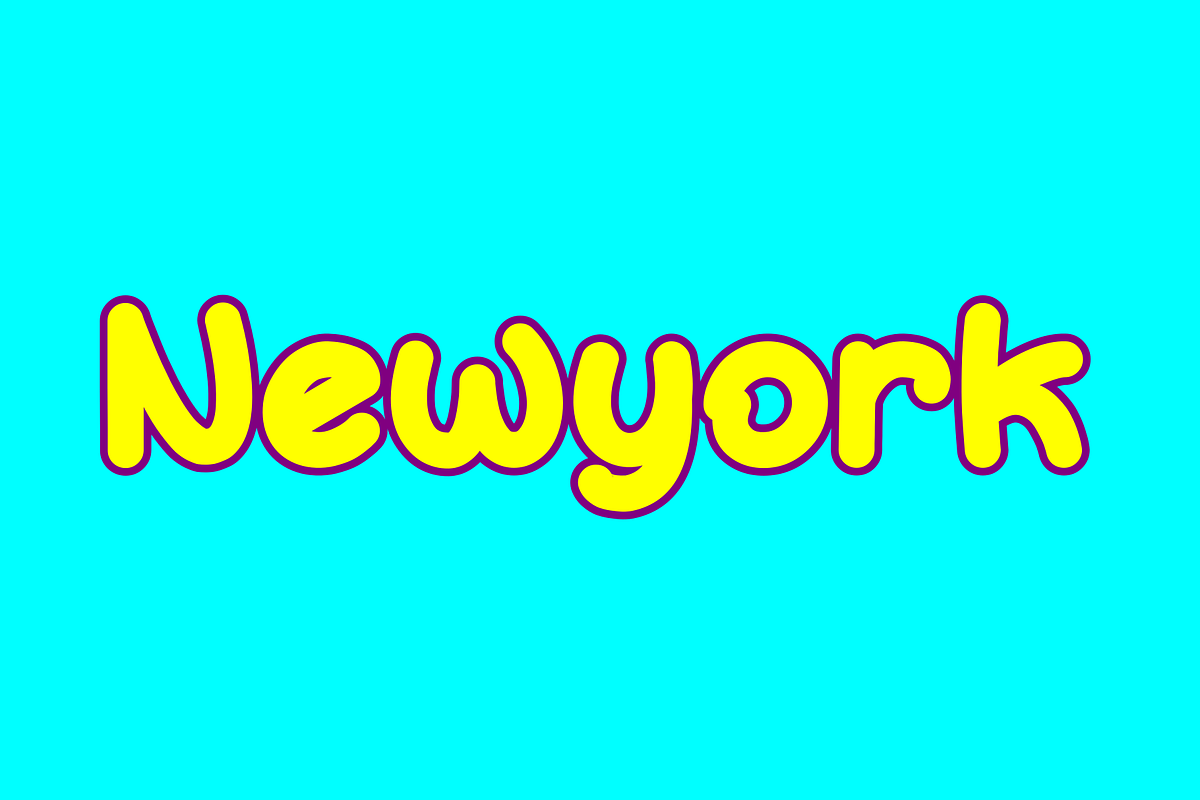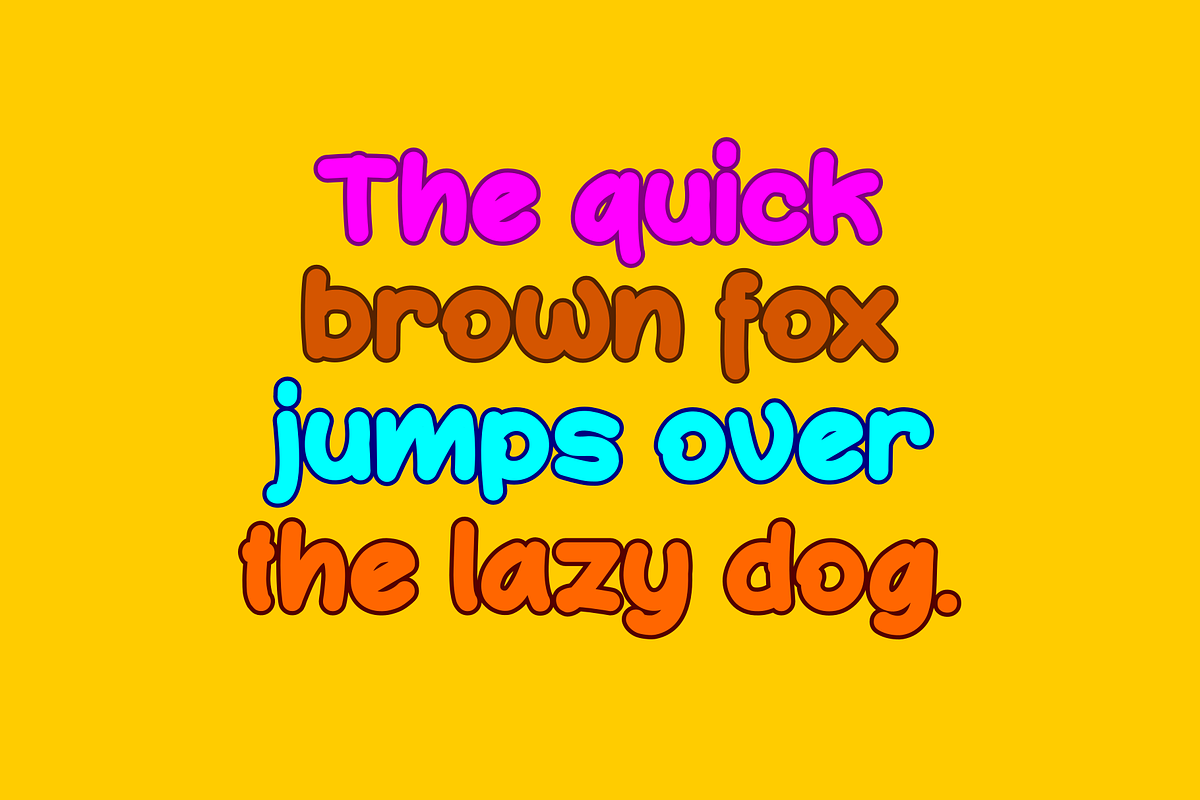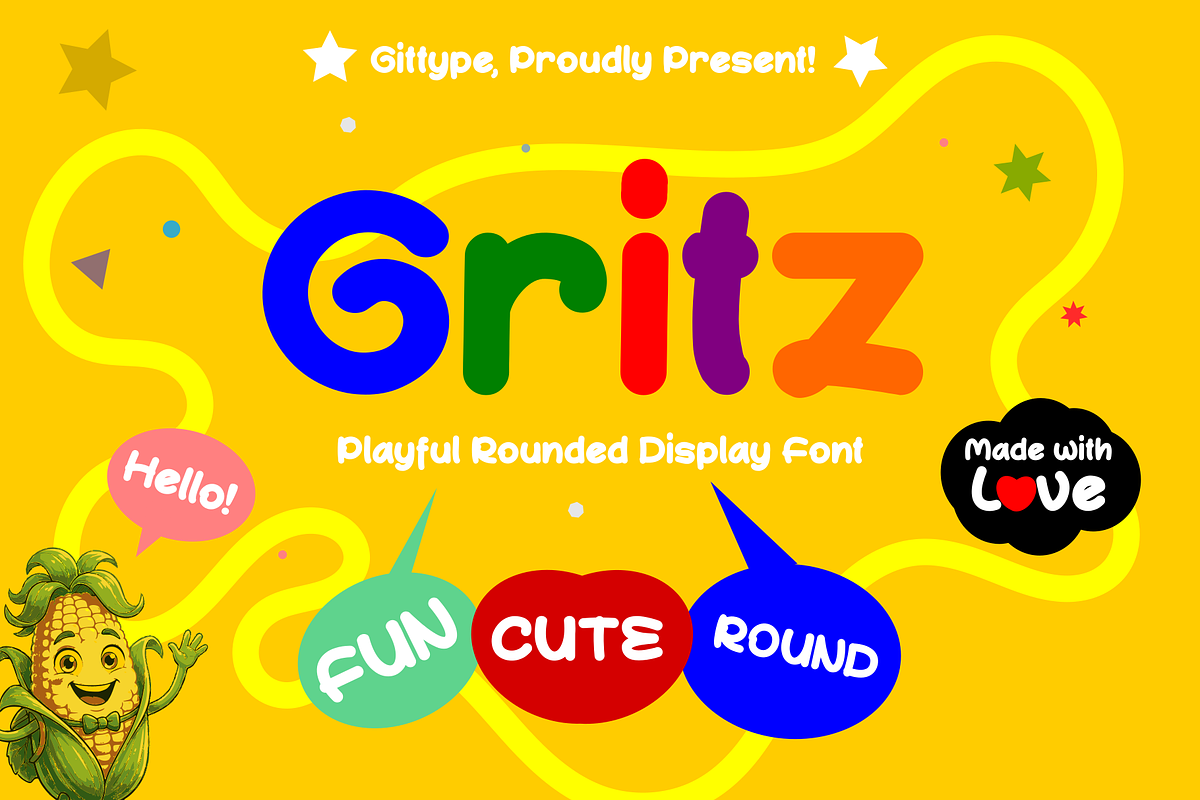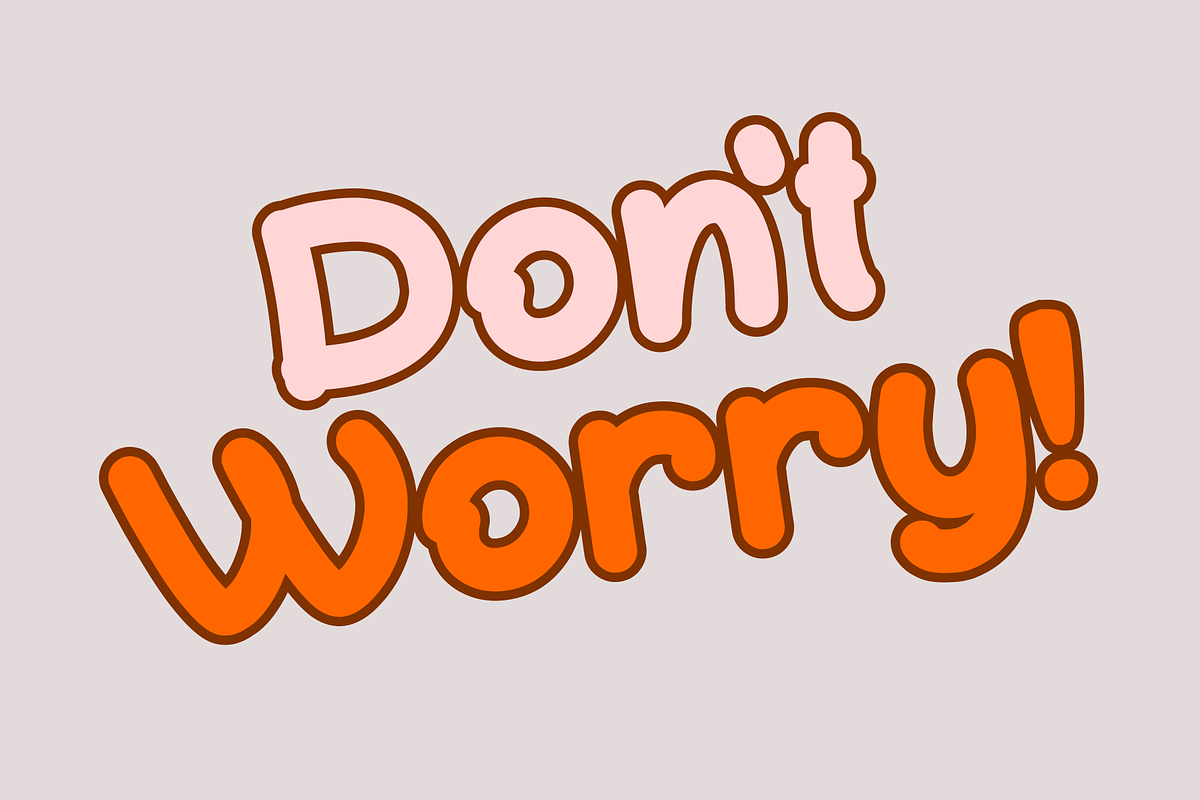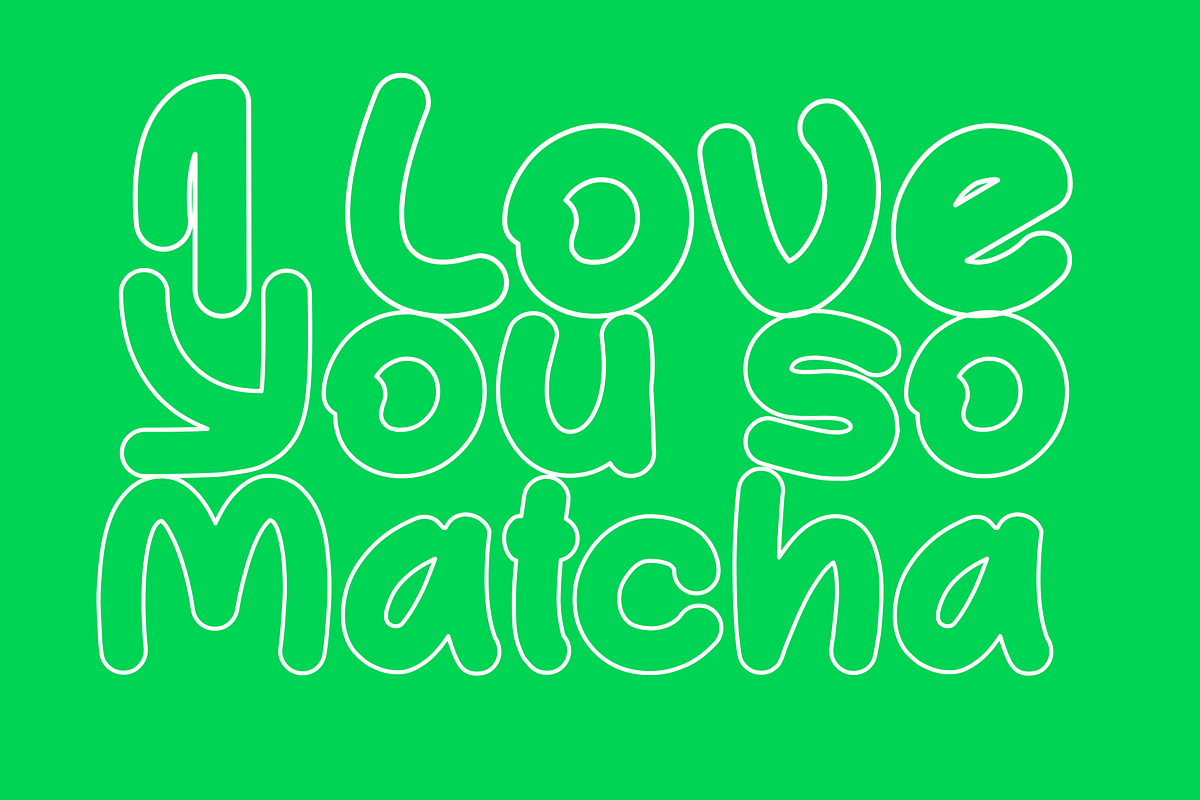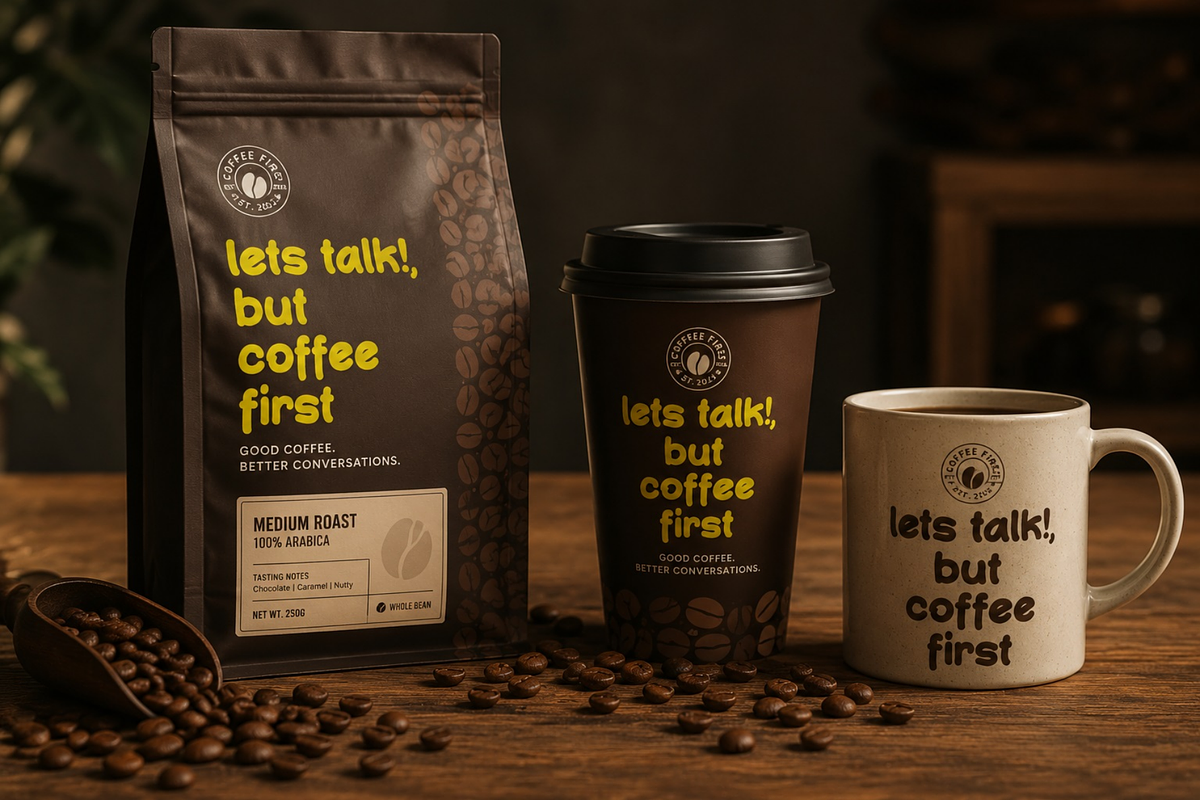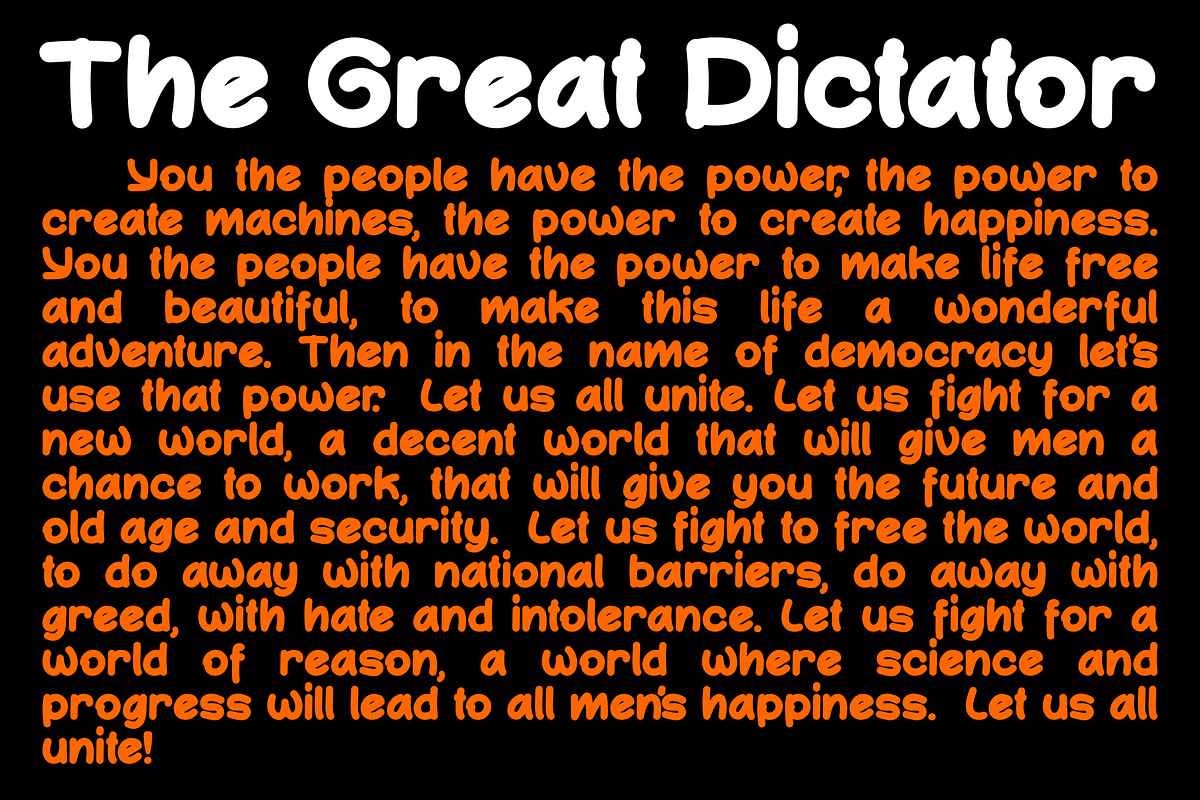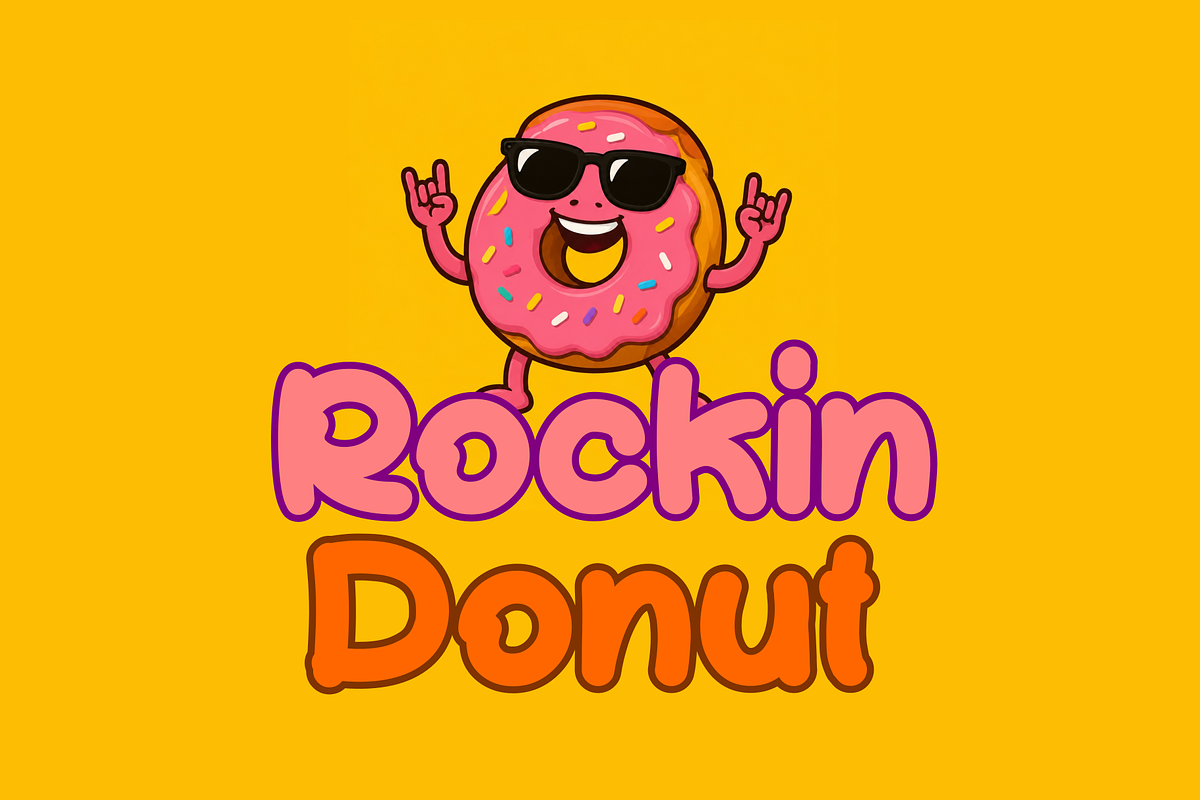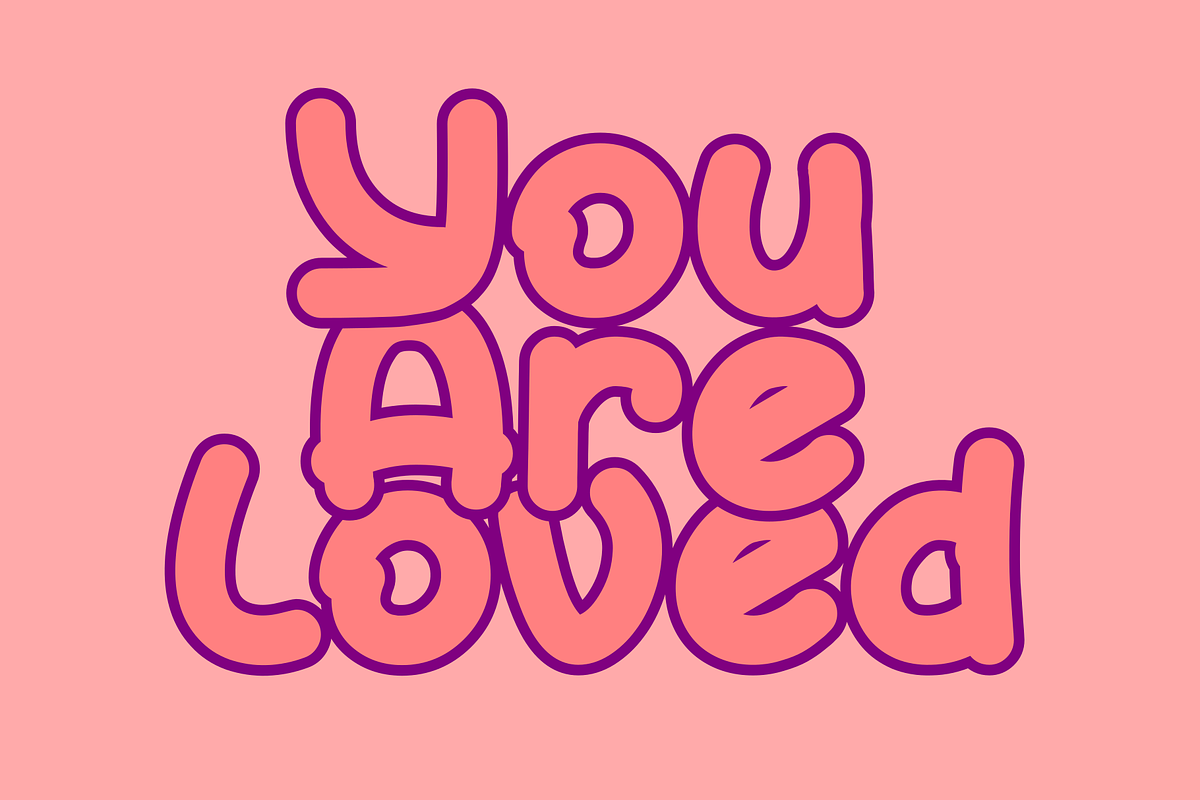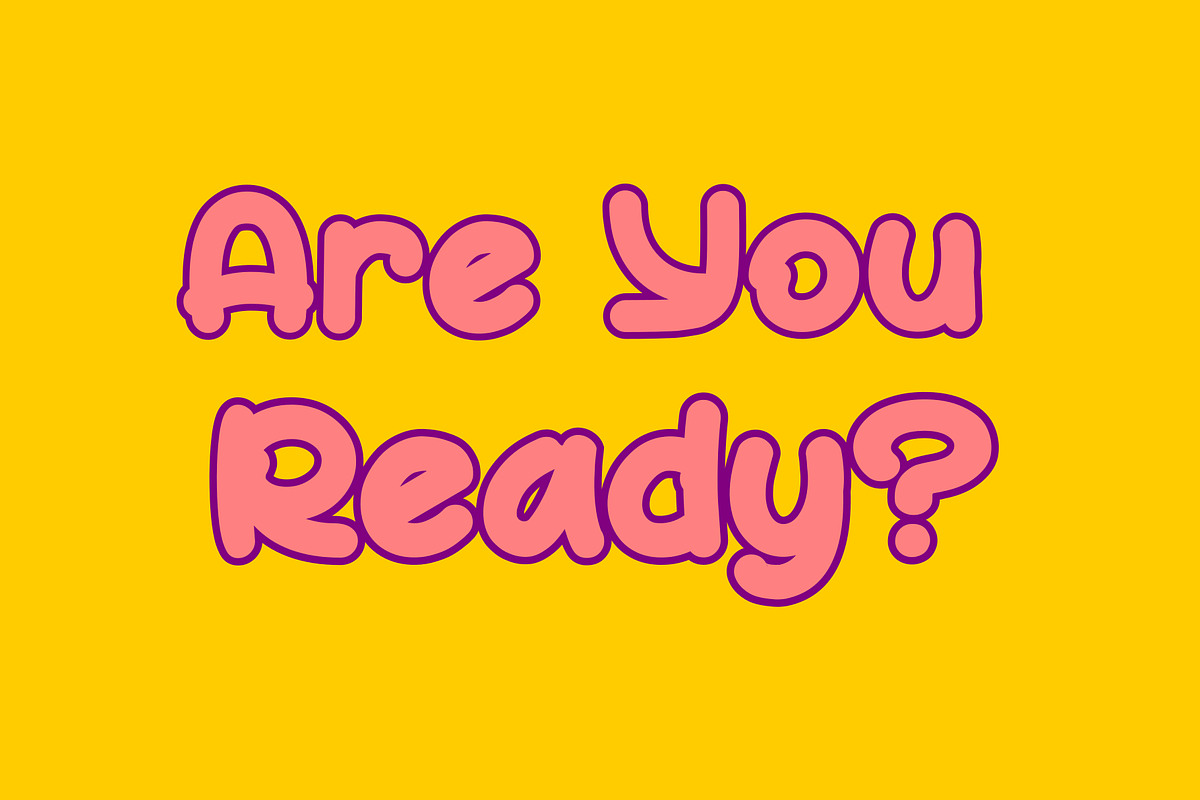
Gritz -Bold Playfull Rounded Display
Gritz is a playful rounded display font with a bold, chunky, and bubbly personality. Designed with soft curves, organic shapes, and a fun cartoon-inspired appearance, Gritz brings a cheerful and friendly feel to any design.
Its bold and rounded letterforms make it highly visible and easy to recognize, while its slightly irregular shapes add a handmade and playful character. Gritz is perfect for designers looking for a cute, fun, youthful, and eye-catching display font.
Gritz works beautifully for logos, branding, packaging, children's products, toys, stickers, posters, apparel, labels, food packaging, invitations, social media graphics, headlines, and fun merchandise.
Whether you're creating a playful brand identity, a kids' project, a colorful packaging design, or a bold social media graphic, Gritz adds personality and a fun visual impact to your typography.
Gritz is made for designs that want to feel bold, happy, playful, and full of character.